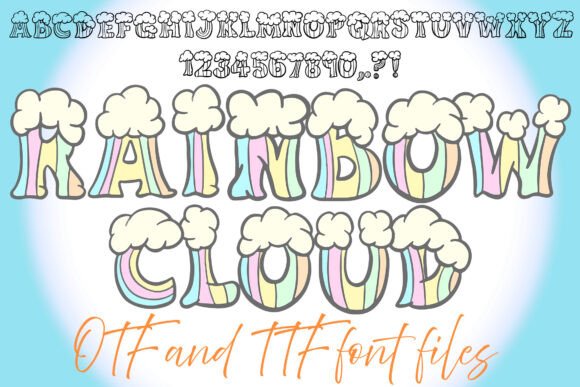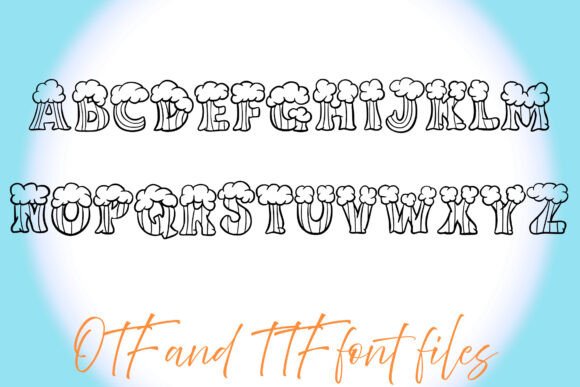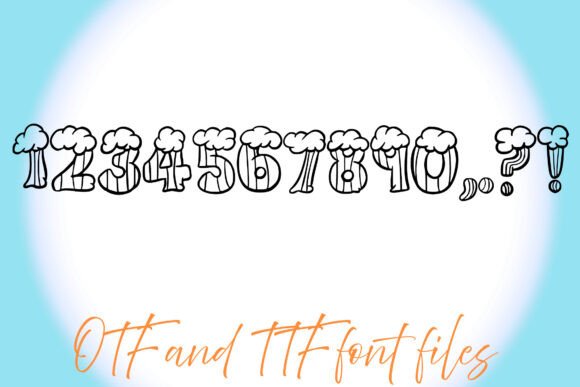
Rainbow Cloud Font
About the Rainbow Cloud Font
Add a touch of class to your work with the Rainbow Cloud Font, a truly exceptional typeface. Rainbow Cloud Font is a dreamy, pastel-colored display typeface where every letter is wrapped in clouds and filled with soft rainbow stripes. This whimsical font is perfect for children’s books, birthday cards, nursery decor, or any cute and colorful design that wants to float on happy vibes.
Rainbow Cloud Font’s playful, whimsical nature makes it ideal for projects targeting a young audience or needing a lighthearted touch. It excels in headlines, logos for children’s products, and short, impactful text on packaging or posters. However, its decorative style is less suitable for body text or UI elements where readability is paramount. Long paragraphs set in this font would be difficult to read.
Consider pairing Rainbow Cloud with a clean sans-serif like Open Sans for contrast and improved readability in supporting text. For a more sophisticated feel, a delicate script font such as Great Vibes could add an elegant layer. Conversely, a geometric sans-serif like Futura could offer a modern counterpoint, grounding the whimsical nature of Rainbow Cloud.
The font’s overall personality is undeniably cheerful and friendly, conveying a sense of lighthearted fun and approachability. It’s best suited for brands focused on children’s products, confectionery, entertainment, or anything requiring a touch of childlike wonder.
Rainbow Cloud Font Usage Examples
Rainbow Cloud Font Example